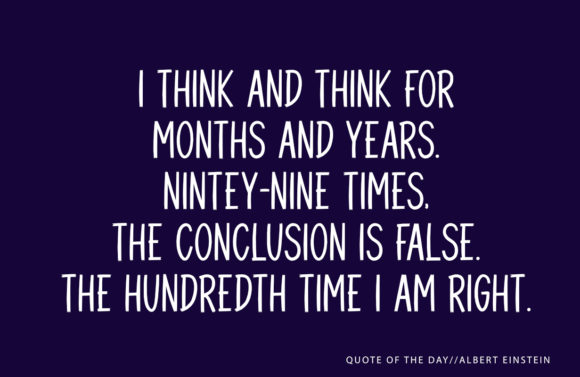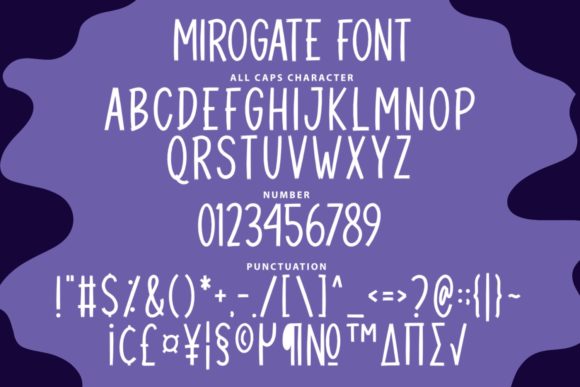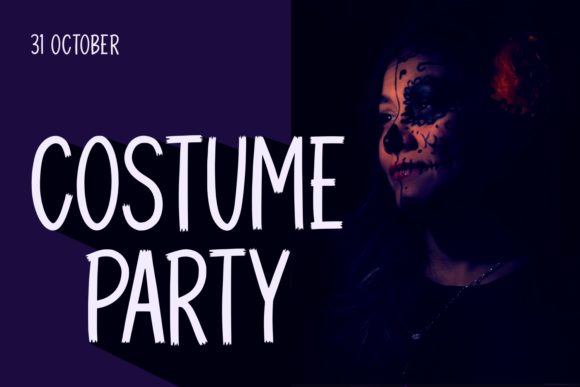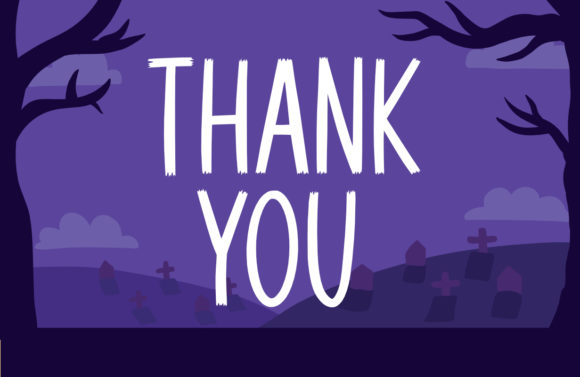
Introduction to Mirogate Font
As a designer, have you ever been stuck on a creative project, searching for that perfect font to bring your idea to life? It’s that moment when you finally find a hidden gem that sparks your imagination and elevates your design to the next level. For those who love Halloween, we’ve got a treat in store – the Mirogate Font.
This free download is a simple and neat lettered display font, specifically designed to capture the spooky essence of Halloween. With its high-quality design, the Mirogate Font is a valuable resource for any designer looking to add a touch of Halloween magic to their creative project. Its transparent background makes it easy to integrate into your design, allowing you to focus on what matters most – bringing your vision to life.
Whether you’re working on a Halloween-themed design or just want to add a seasonal twist to your project, the Mirogate Font is sure to make your design stand out. So, what are you waiting for? Dive into the world of Mirogate Font and discover the possibilities it has to offer for your next creative project.
Key Features of Mirogate Font
- High-quality design resource ideal for creative projects, offering a unique and modern aesthetic.
- Features a transparent background, allowing for seamless integration with any design element.
- Designed with precision and care, resulting in crisp and clear typography at resolutions up to 300 DPI.
- Perfect for use in graphic design, digital art, and other creative projects where a modern and sleek font is desired.
Honest Review: Mirogate Font
I recently stumbled upon the Mirogate Font while searching for a free design resource for a creative project. As a designer, I’m always on the lookout for high-quality fonts that can elevate my work. In this review, I’ll share my honest thoughts on this font.
What works well: ✨ The Mirogate Font has a unique, modern design that makes it perfect for a variety of creative projects. It’s available for free download, which is a huge plus. The font is also highly customizable, making it easy to use in different design scenarios.
High-quality design: The Mirogate Font has a clean, crisp design that makes it perfect for digital and print projects.
Transparent background: This feature allows for seamless integration with different backgrounds, making it a great choice for designers who want to create visually appealing designs.
Limitations: ⚠️ While the Mirogate Font is a great resource, it’s not without its limitations. The font only comes in a limited number of weights, which may not be suitable for projects that require a wide range of font styles.
Overall impression: The Mirogate Font is a solid addition to any designer’s toolkit. While it may not be perfect, its unique design and high-quality features make it a great choice for creative projects. If you’re looking for a free design resource, I’d definitely recommend giving the Mirogate Font a try.
The Mirogate Font is a high-quality design resource perfect for creative projects. With a transparent background, it offers a versatile and modern look.
Tips for Getting the Most Out of Mirogate Font
Experiment with different font sizes and colors to create a visually appealing design. Use the font in combination with other design elements to create a cohesive look.
The Mirogate Font is suitable for a wide range of creative projects, including graphic design, branding, and digital marketing. Its modern and versatile look makes it perfect for creating eye-catching designs.